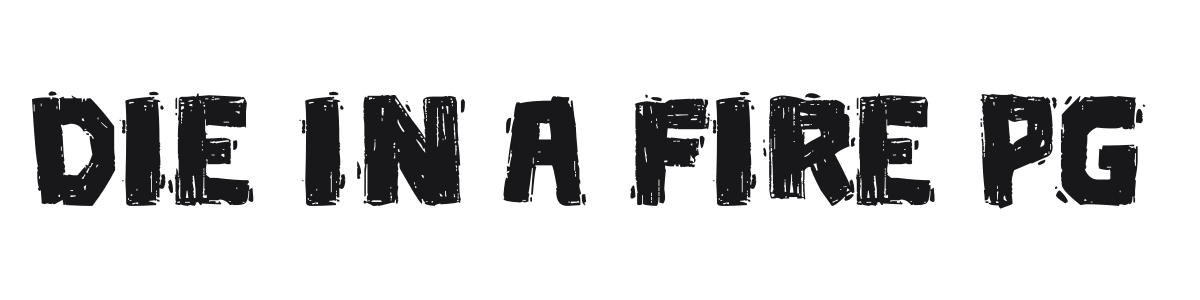
Die in a fire PG
Die in a Fire PG is a heavy, wide display font from Press Gang Studios with an aggressively distressed texture that makes every character look scorched or shredded. The thick blocky forms are battered with rough irregular edges that give the whole word a raw, destructive energy. It belongs on concert posters, horror titles, and underground comic covers.